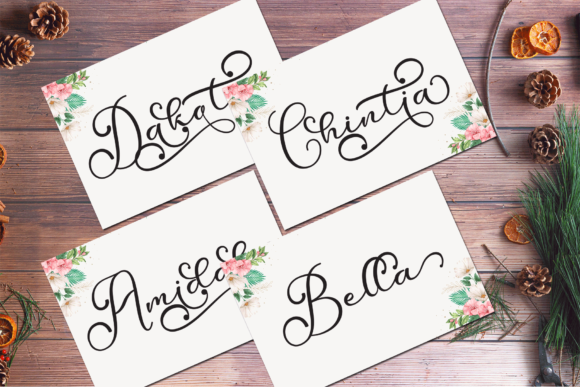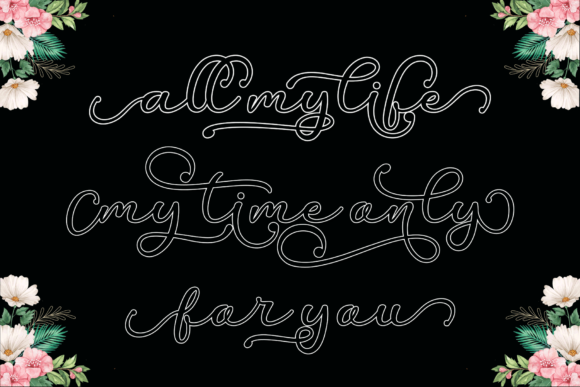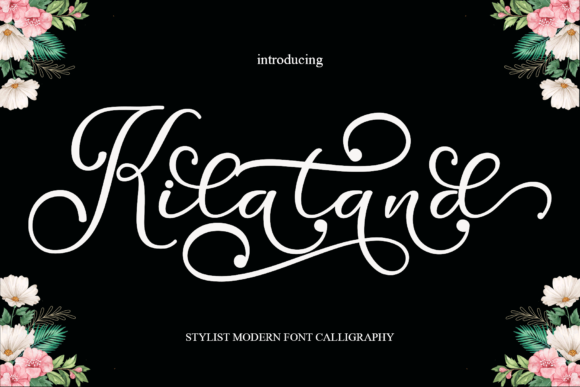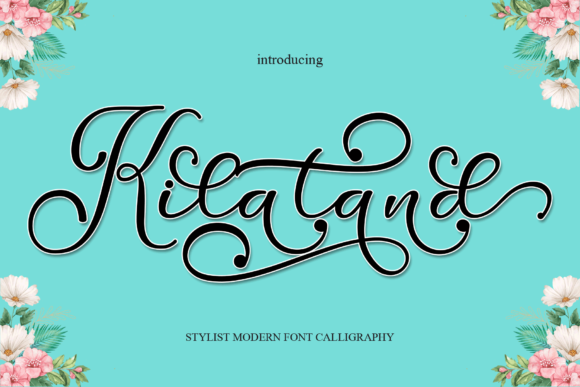
Introduction to Kilatand Font
Kilatand feels gorgeous and stylish.
It looks beautiful on wedding invitations, thank you cards, quotes, greeting cards, logos, business cards and every other design which needs a customized touch This font is PUA encoded which means you can access all of the glyphs and swashes with ease.
Kilatand Font offers exceptional quality and versatility, making it a valuable addition to your design toolkit. Whether you’re creating for personal projects or commercial use, Kilatand Font delivers professional results.